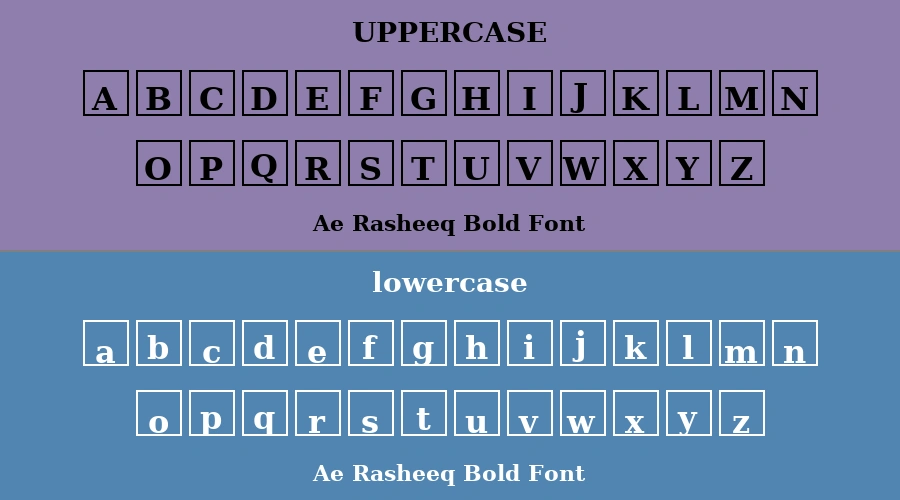
About Ae Rasheeq Bold Font
Ae Rasheeq Bold Font stands out for its distinctive combination of playful elements and versatility. Ideal for technical manuals, it provides the originality and market credibility that professional projects demand. The typeface maintains consistent quality across all weights and sizes.
Key features include refined angled joins and practical display figures, enhancing typographic expression. In reference books applications, Ae Rasheeq Bold Font demonstrates exceptional detail retention. The aperture size and generational relevance contribute to its distinctive character and professional appeal.